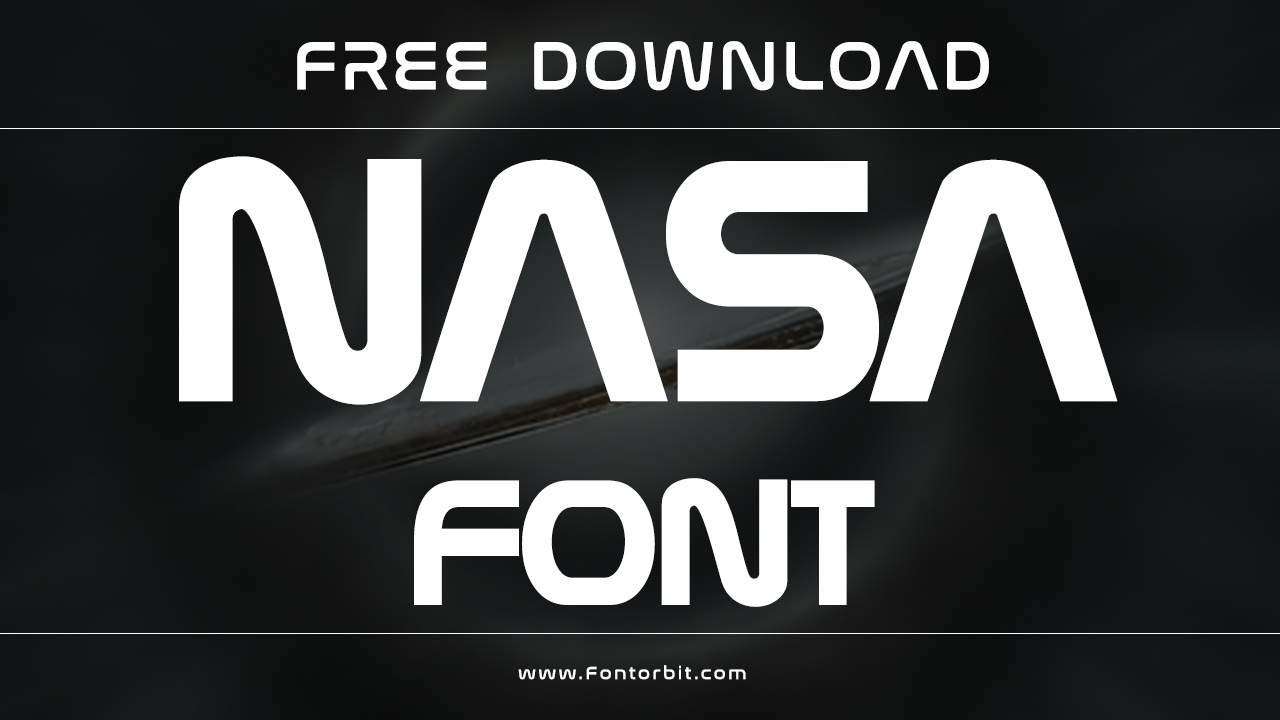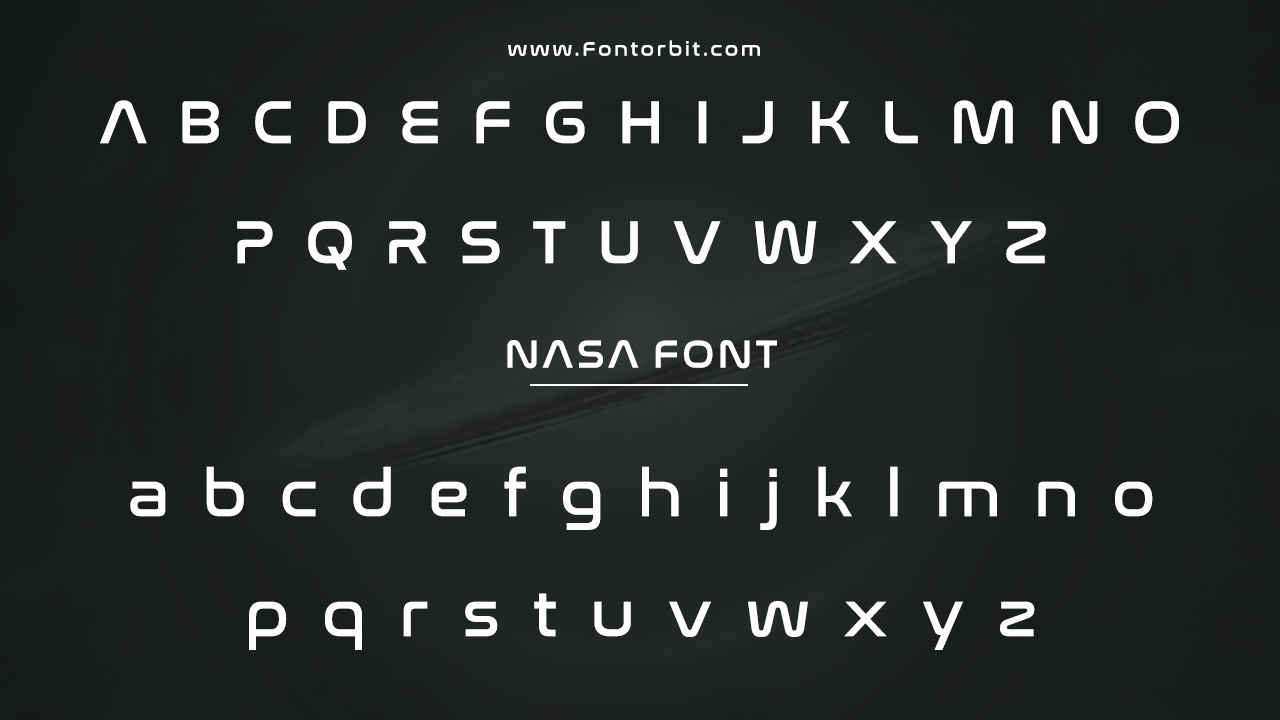
The NASA Font is an iconic typeface inspired by NASA’s branding. NASA, the National Aeronautics and Space Administration, is a U.S. government agency known for its achievements in space exploration and innovation. The font reflects the clean and futuristic style associated with NASA’s visual identity.
It pays tribute to the typography used in NASA’s famous logos. These include the “worm” logo, designed by Bruce Blackburn, and the “meatball” insignia, created by James Modarelli. Both designs have become symbols of NASA’s rich history and forward-thinking approach. The NASA Font captures this legacy with a bold and modern aesthetic.
Type Of The NASA Font (Font Family)
The NASA Font family falls under modern sans-serif typefaces, often associated with sleek and ultramodern designs. The fonts most commonly linked to NASA’s branding include:
Nasa Medium
Both fonts embody a futuristic, space-inspired aesthetic, making them ideal for innovative projects.
Using Occasions
The Nasa Font is perfect for creating impactful and futuristic designs, suitable for various projects like:
- Logo design: Perfect for branding and creating iconic insignias.
- Graphic design: Adds a modern flair to posters, flyers, and signage.
- Social media platforms: Makes bold and attention-grabbing visuals.
- Exploration-themed materials: Enhances space and science-related projects.
- Text styling: Works well in large sizes and modern fonts for detailed material.
- Decorations: Ideal for projects requiring innovation-driven typography.
The NASA Font Found In Use
This font is commonly seen in NASA’s visual identity, including the:
- “Worm” Logotype
- “Meatball” Insignia
- Federal Graphics Improvement Program branding
- NASA Seal used in official documents
Its versatility allows it to thrive in creative and corporate designs. Whether on a blue background or used as body text, the NASA Font reflects innovation and modern typography principles.
The Nasa Font is an ultramodern typeface that embodies innovation and exploration. Whether used for space-themed designs or sleek branding, this font reflects a timeless aesthetic inspired by NASA’s legacy. Perfect for large sizes, signage, or graphic design projects, the Nasa Font adds a futuristic and professional edge to any project.
1.What Makes The Nasa Font Unique?
The NASA Font is a sleek, sans-serif typeface inspired by NASA’s modern and futuristic designs. Its clean lines and space-inspired style have made it an essential visual element for projects related to exploration and innovation. The font draws influence from NASA’s worm logo, designed by Bruce Blackburn, and the iconic insignia, making it a timeless representation of bold typography.
2.What Projects Can The NASA Font Be Used For?
The NASA Font is versatile and ideal for graphic design projects such as logos, social media platforms, large sizes, and posters. It’s particularly suitable for exploration-themed outputs, futuristic branding, and visual identity creation. Whether you’re designing for the federal graphics improvement program or personal use, this typeface enhances the aesthetics of any design.
4.Does The NASA Font Support Multilingual Text?
Yes, the Nasa Font supports multiple languages, making it an excellent choice for international projects. Its adaptability is particularly useful in creating body text for signage, social media posts, or designs intended for a global audience, such as exploration-themed materials.
6.What Fonts Are Similar To The Nasa Font?
If you’re looking for alternatives to the NASA Font, consider modern fonts like Nasalization Font by Ray Larabie, Ultramodern Sans, or classic serif fonts for complementary designs. These fonts share a futuristic and professional aesthetic that fits well with NASA-inspired themes.
8.Can The NASA Font Be Used In Professional Design Applications?
Yes, the NASA font is widely used in professional graphic design, particularly for logos, signage, and branding materials. It performs exceptionally well in large sizes and ultramodern sans layouts. Designers can incorporate it into projects to enhance visual identity, material outputs, and overall aesthetics, ensuring the font family fits seamlessly into the design process.